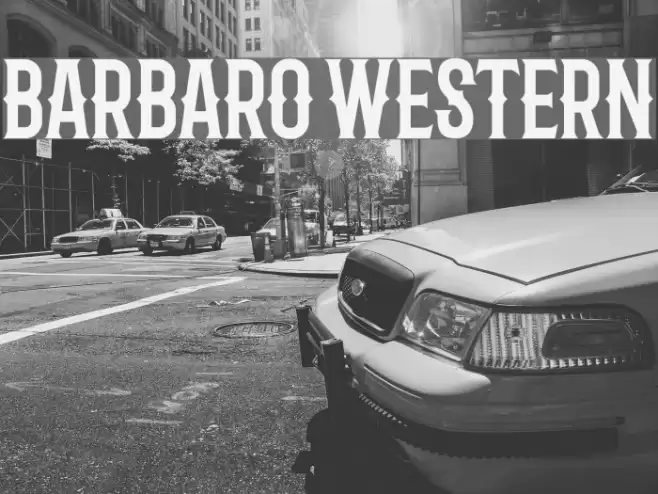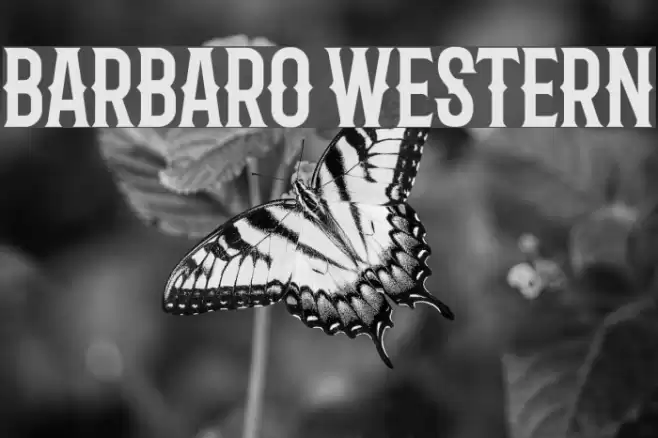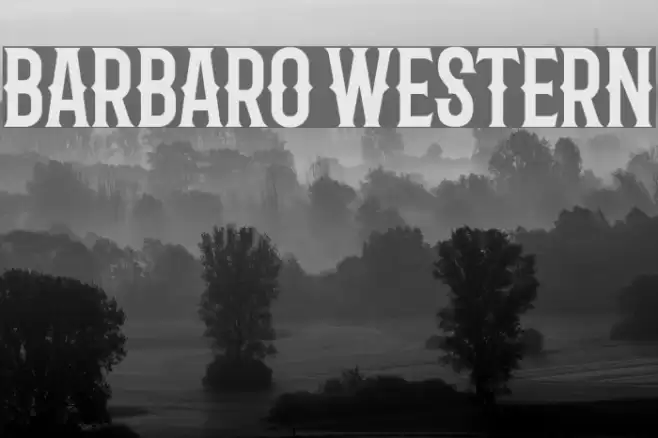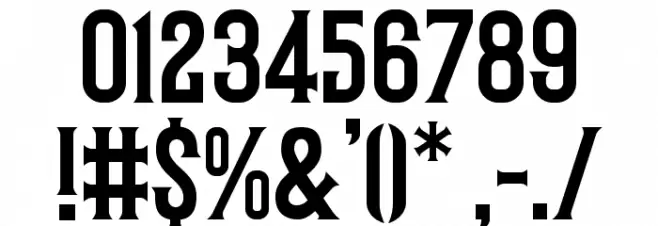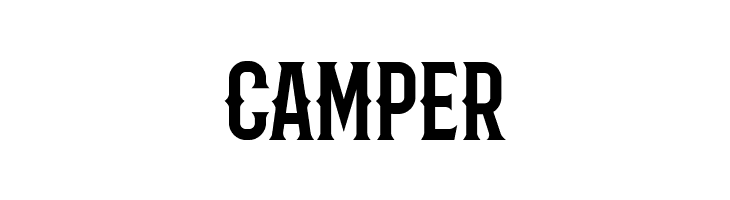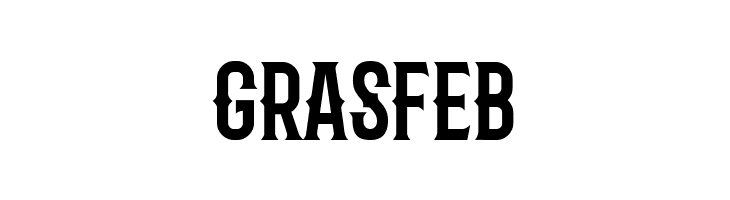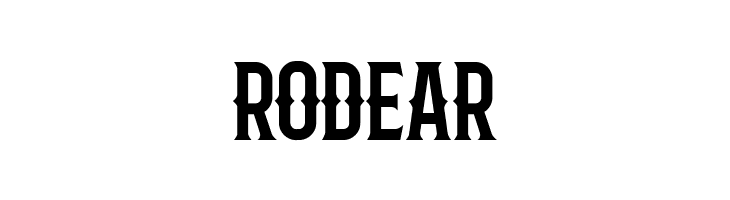
Barbaro Western Font
Barbaro Western Description
This font exudes a bold, rugged charm reminiscent of the Old West. Its thick, blocky serifs and strong vertical lines create a commanding presence, perfect for making a statement. The letters are designed with a slight inward curve, adding a touch of elegance to the otherwise robust structure. The numbers and special characters maintain this bold style, ensuring consistency across all text elements. The font's unique style is ideal for projects that require a vintage or Western theme, such as posters, signage, or branding for themed events.
A bold, Western-themed font with strong serifs and a vintage appeal from Western fonts.
- Proposed Projects: Ideal for Western-themed posters, signage, branding, and event materials.
- Overall Style: Vintage